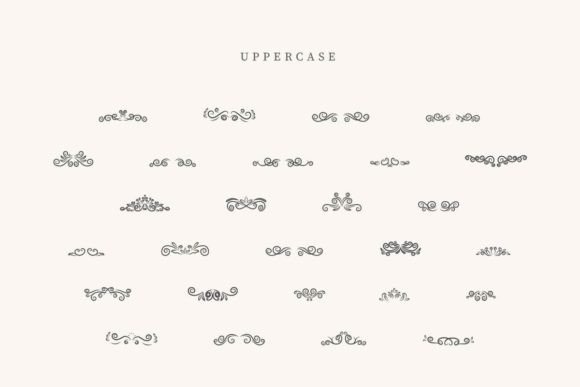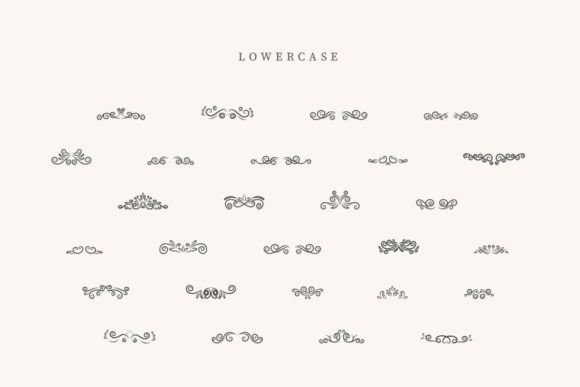
Introducing Graduation Divider: A Timeless Font for Retro Glamour
I’ll never forget the design struggle I faced while working on a vintage-themed craft project. I had all the elements in place – the perfect color palette, a clear vision, and a deadline looming. But something was missing: the right font. That’s when I stumbled upon Graduation Divider, a unique dingbat font that instantly elevated my design. If you’re a designer, crafter, or creative hobbyist looking to infuse a touch of retro elegance into your work, you’re in the right place.
As a designer, I appreciate fonts that offer versatility and a dash of personality. Graduation Divider checks all the boxes. Here’s what I love:
- ✨ Retro charm: The font’s vintage elegance is perfect for craft projects, invitations, and decorative designs.
- ✅ Ornamentation: The unique dingbat elements add a touch of sophistication to any design.
- 💫 Versatility: Graduation Divider can be used for a wide range of projects, from digital designs to print materials.
While Graduation Divider is an excellent font, it’s not without its quirks:
- 🤔 Limited use in body text: Due to its ornate nature, Graduation Divider works best as a display font or for short headings.
- ⚠️ Glyph compatibility: Some glyphs might not work seamlessly across all platforms or software.
The Story Behind Graduation Divider
Graduation Divider was inspired by the nostalgic charm of traditional graduation ceremonies. The font’s designer aimed to capture the essence of vintage elegance and ornamentation, resulting in a unique dingbat font that’s both classic and versatile.
| What type of projects is Graduation Divider best suited for? | Graduation Divider is perfect for craft projects, invitations, decorative designs, and any project that requires a touch of retro elegance. |
| Is Graduation Divider compatible with all platforms? | Graduation Divider should work on most modern platforms, but some glyphs or features might not be supported across all software or devices. |